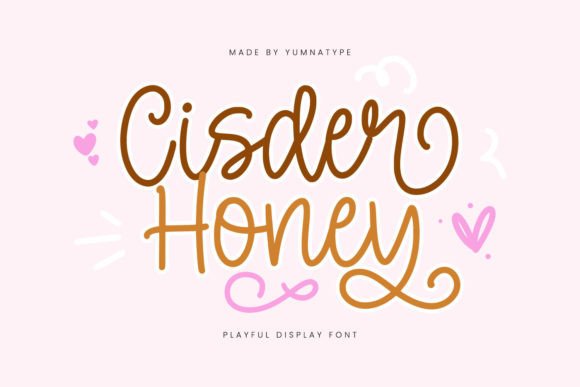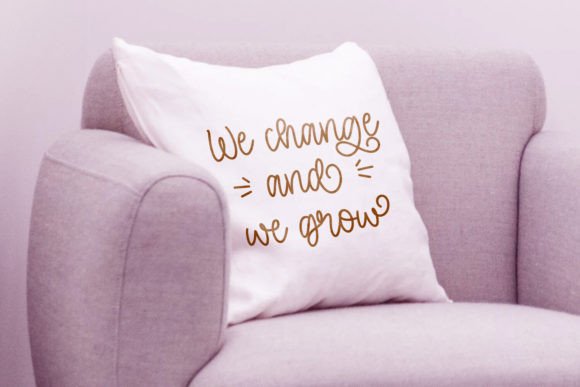
Cisder Honey Font
Cisder Honey is a delightful script font that exudes sweetness and charm. With its playful style and light weight, Cisder Honey captures the fluidity and elegance of cursive handwriting. Each letter flows seamlessly into the next, creating a sense of rhythm and movement that is both captivating and inviting.